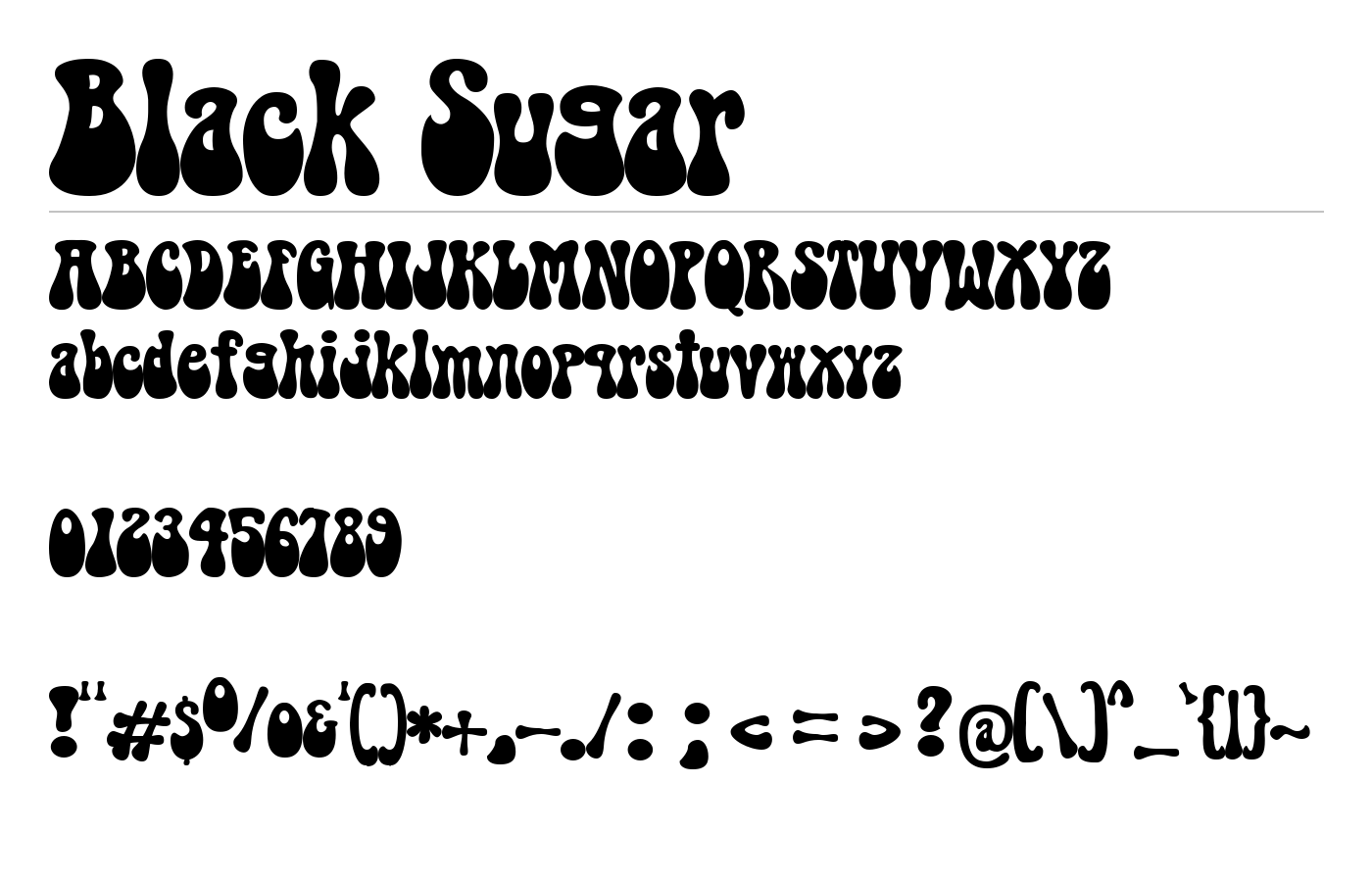
Black Sugar is a bold, playful display font with thick, rounded letterforms that evoke a retro, 1970s vibe. Its chunky shapes and unique, slightly irregular curves create a fun and quirky personality, making it ideal for eye-catching headlines, branding, and creative projects that want to convey a sense of whimsy and nostalgia. This font works best in contexts where strong visual impact and a lively mood are desired.
Black Sugar Font
About Black Sugar Font